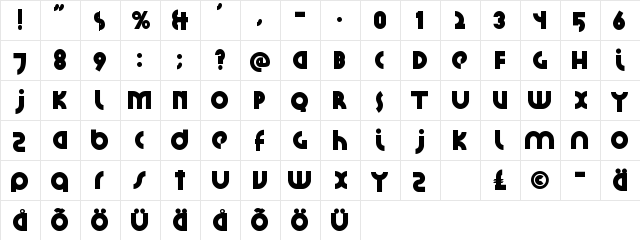
Santiako Bold
Design Context for Santiako Typeface
Santiako is a composed and adaptable typeface that performs quietly and consistently across a wide range of design contexts. Its bold stroke weight gives it real presence on the page.
Pro Tip: Pair Santiako with a font of contrasting weight or personality to build a more expressive typographic hierarchy.